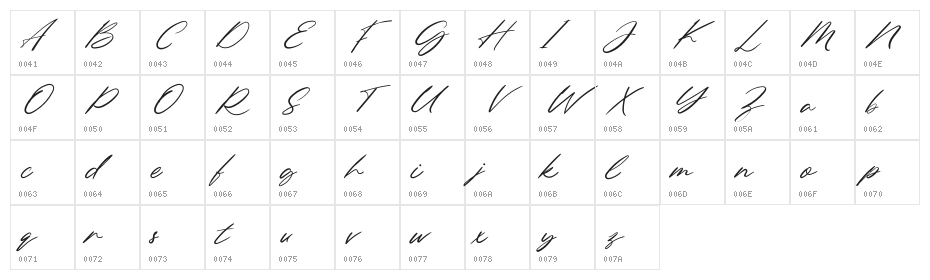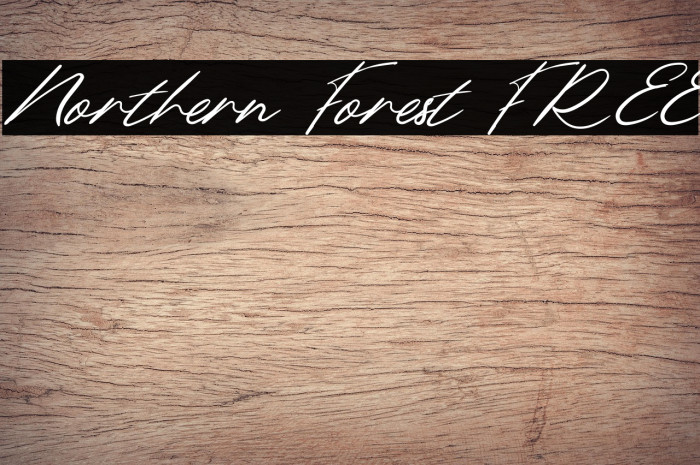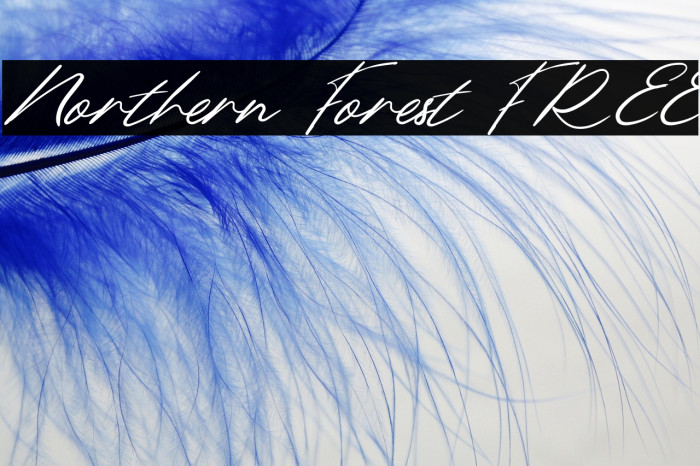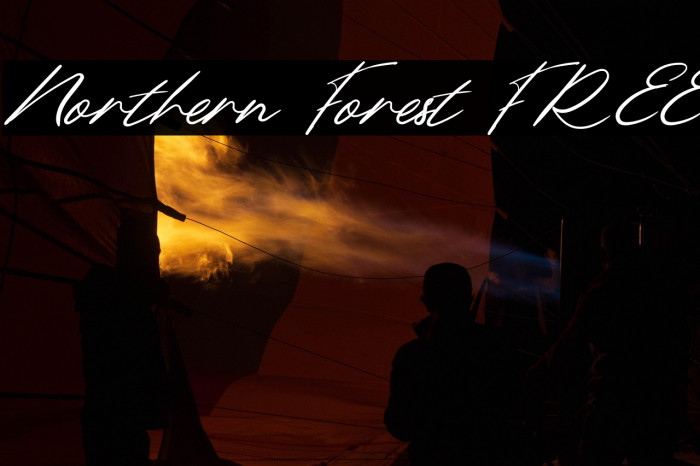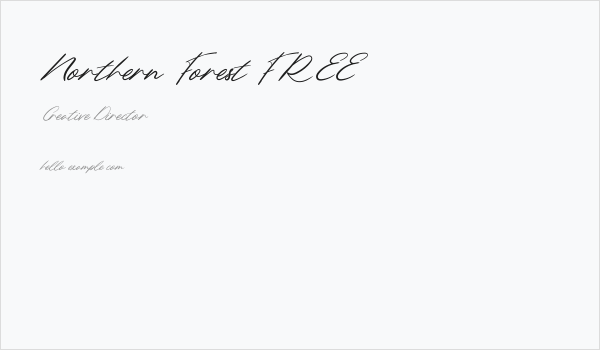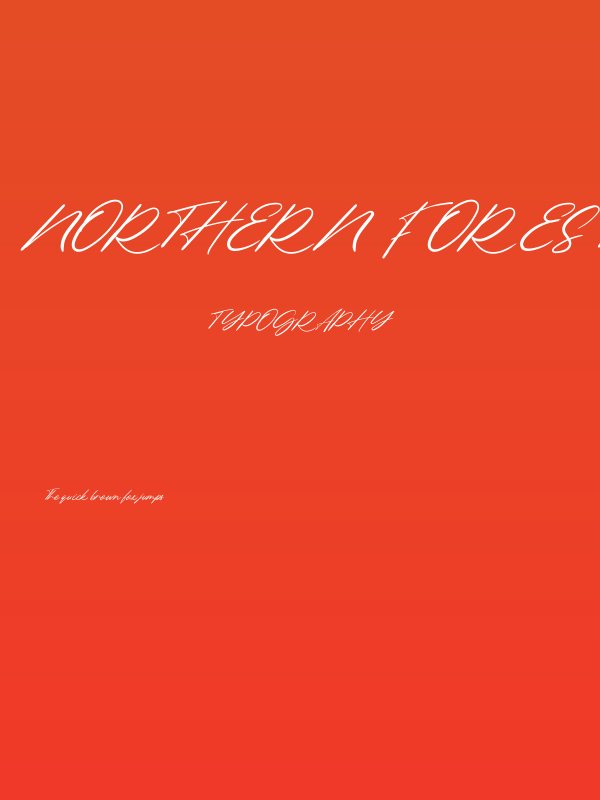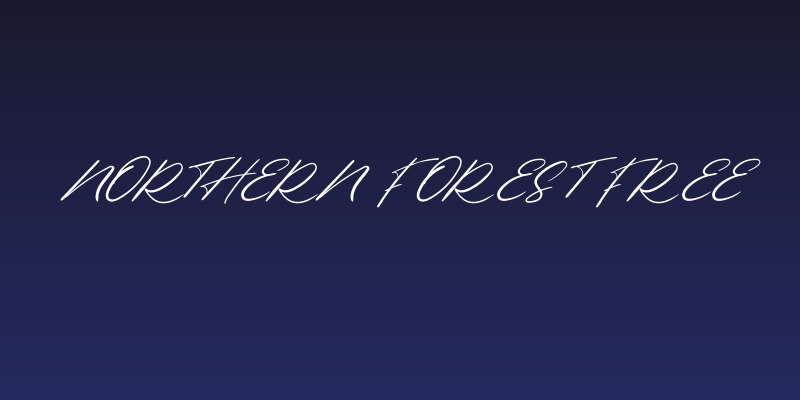
Northern Forest FREE Font
Northern Forest FREE Description
This font features a dynamic and flowing script style, characterized by its elegant, cursive letterforms. The strokes are smooth and connected, giving it a handwritten appearance that is both sophisticated and approachable. The uppercase letters are bold and slightly slanted, while the lowercase letters maintain a consistent flow with a slight inclination. The overall design is modern yet retains a classic charm, making it versatile for various design needs. The characters are well-spaced, ensuring readability without compromising the artistic flair. This font is ideal for projects that require a personal touch, such as invitations, greeting cards, or branding materials.
Use CaseLogos, Invitations, Greeting Cards
Proposed ProjectsPerfect for wedding invitations, greeting cards, personal branding, and logo design.